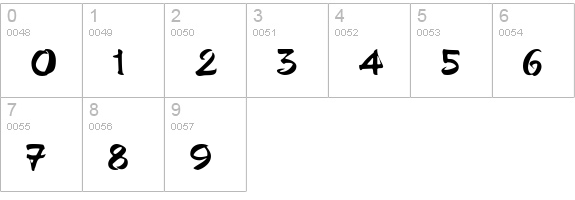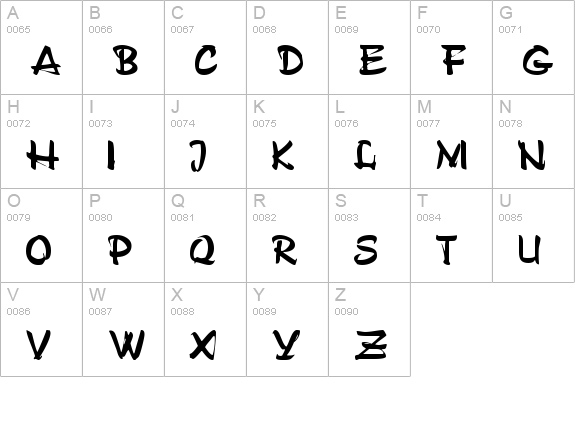
GrunionScript Font Details
Introducing GrunionScript font, a beautifully crafted typeface that exudes elegance and sophistication. This script font features flowing and graceful letterforms that add a touch of charm to any design project. Whether used for invitations, branding, or editorial designs, GrunionScript will elevate your work with its timeless appeal. Best of all, GrunionScript is available for free download at FontsMarket.com. With just a few clicks, you can enhance your creative projects with this stunning font. Don't miss out on the opportunity to add GrunionScript to your font collection and bring a touch of class to your designs. Download it today and unleash your creativity!